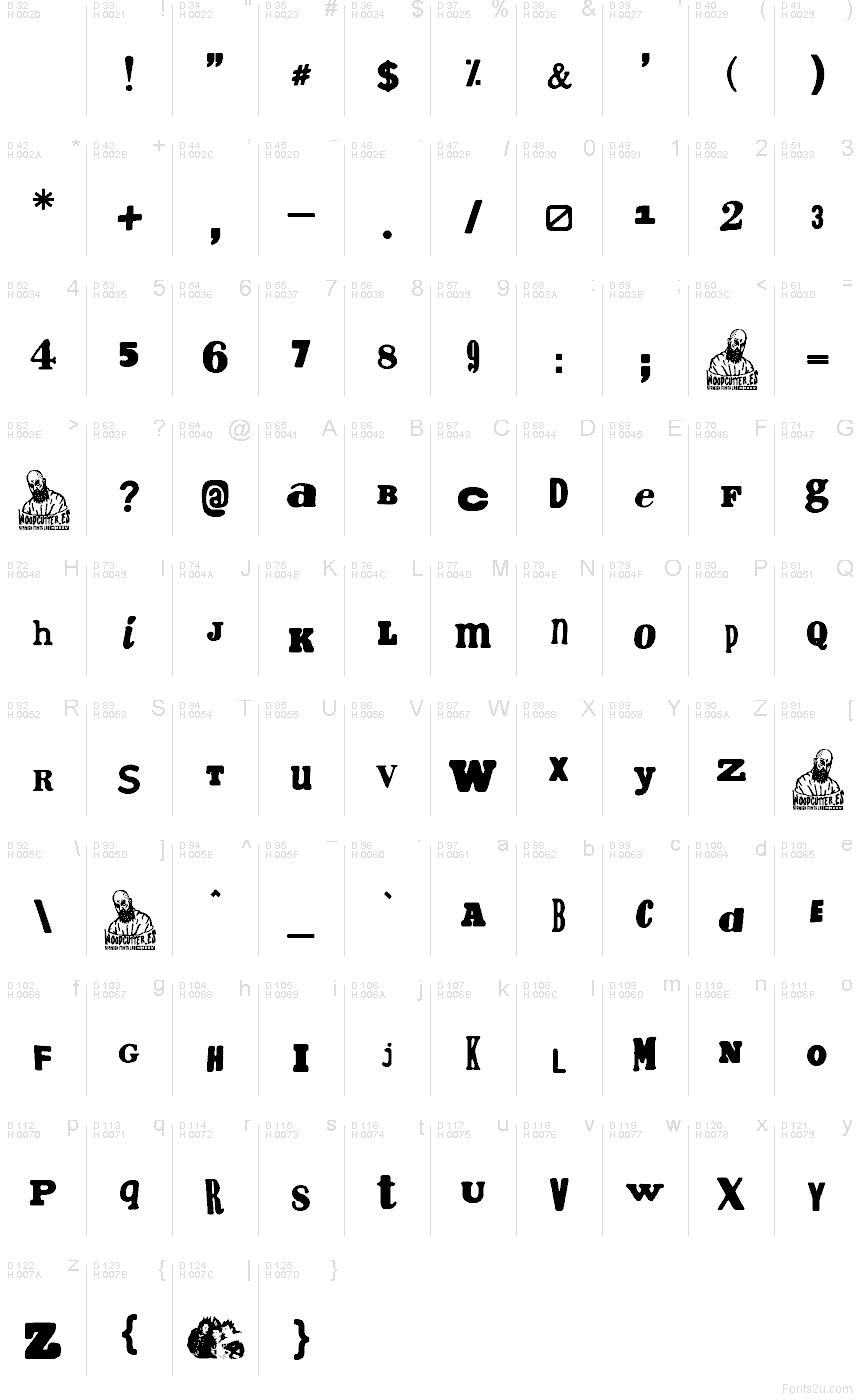
Punk Militia Hotel font by Woodcutter is a free distorted display typeface that looks like it’s been photocopied, cut up, and reassembled at 3 a.m. The chunky, uneven letters wobble and swell, with inky blobs and warped silhouettes that feel straight out of a grimy gig flyer or a photocopied zine. There’s a raw, handmade energy here-chaotic but still readable-that instantly injects attitude into a layout.
Using Punk Militia Hotel, headlines feel loud, unruly, and slightly dangerous, making this free font a natural fit for band posters, horror titles, streetwear branding, zines, album covers, and underground event graphics. It shines in large sizes where the irregular contours can really breathe. Pair it with a plain, condensed sans serif for body text to keep the chaos focused and the message crystal clear.
Punk Militia Hotel.